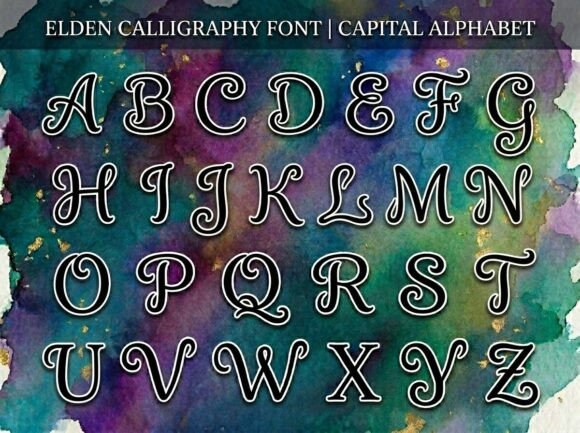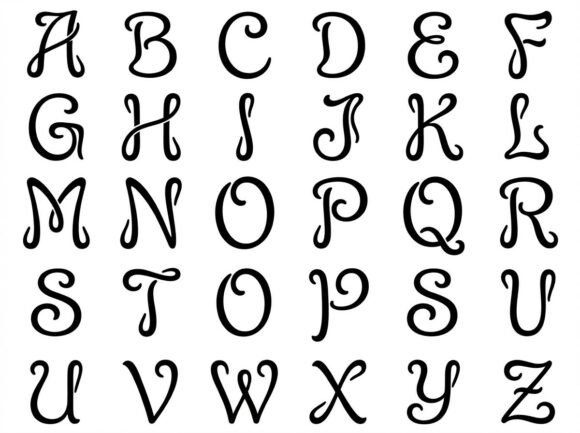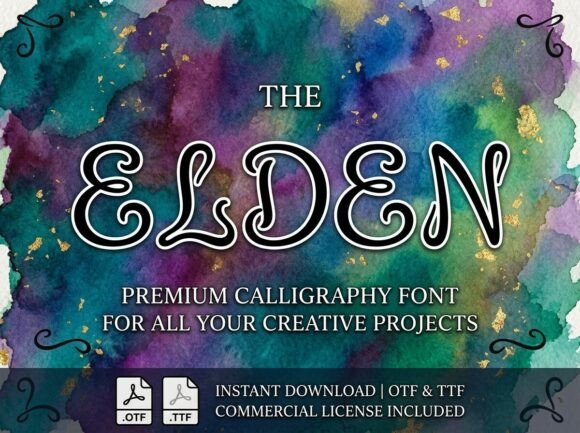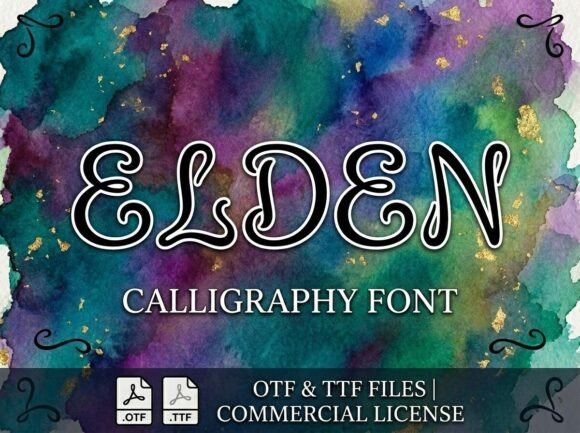
Elden Font: Elevate Your Designs with a Stunning Decorative Display Font
Are you tired of using the same old fonts in your designs? Look no further than Elden Font, a breathtaking decorative display font that’s sure to turn heads. With its unique artistic elements and strong visual personality, this font is perfect for creators who want to break away from the ordinary and make a statement.
What is Elden Font?
Elden Font is a carefully crafted decorative display font designed to be the center of attention. Its distinctive style and flair make it ideal for bold headlines, artistic logos, and creative packaging. Whether you’re a designer, craftsperson, or DIY enthusiast, this font is sure to elevate your projects and give them a professional, polished finish.
Key Features of Elden Font
- Unique Artistic Elements: Elden Font features intricate and artistic elements that set it apart from other fonts. Each letter is a work of art, making it perfect for decorative initials, logos, and headlines.
- Strong Visual Personality: This font has a bold and confident personality that’s sure to make your designs stand out. Its strong visual presence makes it perfect for creating eye-catching graphics and attention-grabbing headlines.
- Versatility: Despite its decorative nature, Elden Font is surprisingly versatile. It can be used for a wide range of design projects, from bold headlines and artistic logos to creative packaging and more.
- Professional and Polished Finish: Elden Font is designed to give your designs a professional and polished finish. Its clean lines and precise curves make it perfect for creating high-quality graphics and designs.
⚠️ IMPORTANT NOTE BEFORE PURCHASE: Elden Font is an ALL-CAPS (Uppercase Only) display typeface. This means that it does not include lowercase letters. It’s specifically designed for high-impact headlines, logos, and decorative initials where every letter is a work of art.
Why Choose Elden Font?
So why choose Elden Font over other decorative display fonts? Here are just a few reasons:
- Unique Style: Elden Font has a unique style that’s sure to make your designs stand out. Its artistic elements and strong visual personality make it perfect for creators who want to break away from the ordinary.
- Professional and Polished Finish: Elden Font is designed to give your designs a professional and polished finish. Its clean lines and precise curves make it perfect for creating high-quality graphics and designs.
- Headlines and Titles: Use Elden Font to create eye-catching headlines and titles that grab attention and make a statement.
- Logos and Branding: Create unique and memorable logos and branding materials with Elden Font’s distinctive style.
- Packaging and Labels: Add a touch of elegance and sophistication to your packaging and labels with Elden Font.